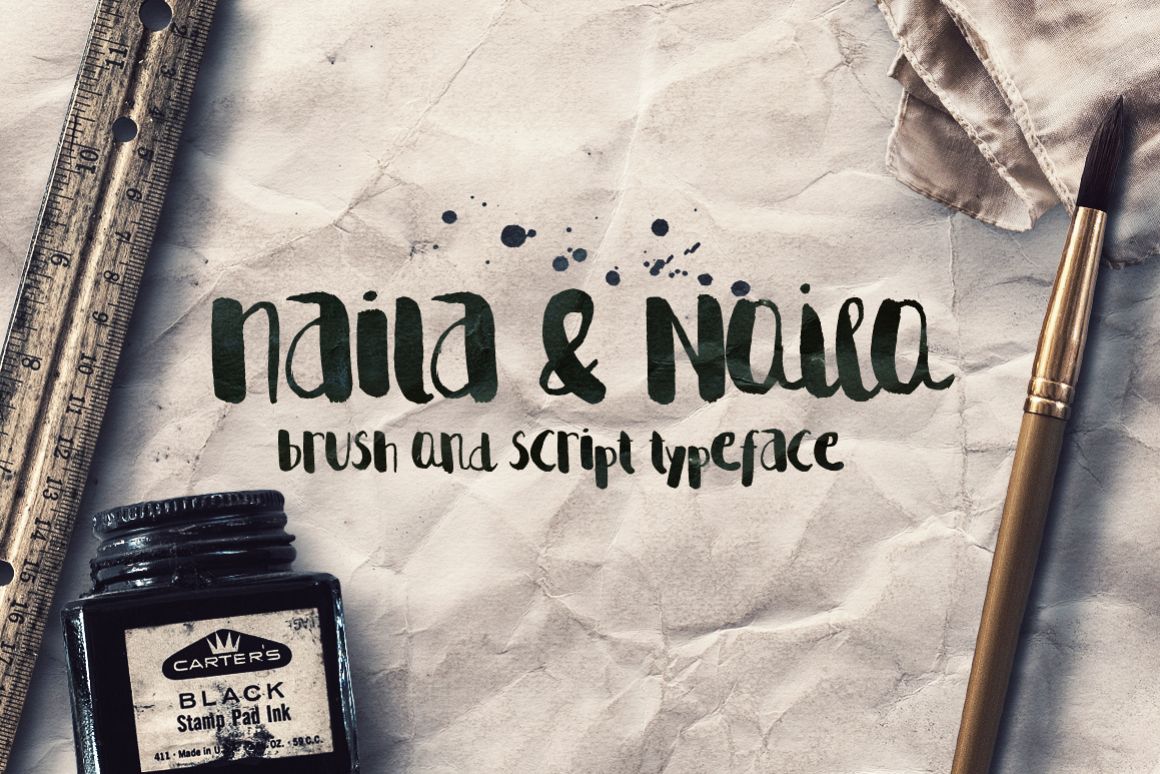
Naila Script Typeface
Naila Script Typeface.
Naila Typeface.
Naila Script Typeface
These are actually 2 fonts. The fonts are perfectly suited for each-other. Naila Script is a handmade script font.